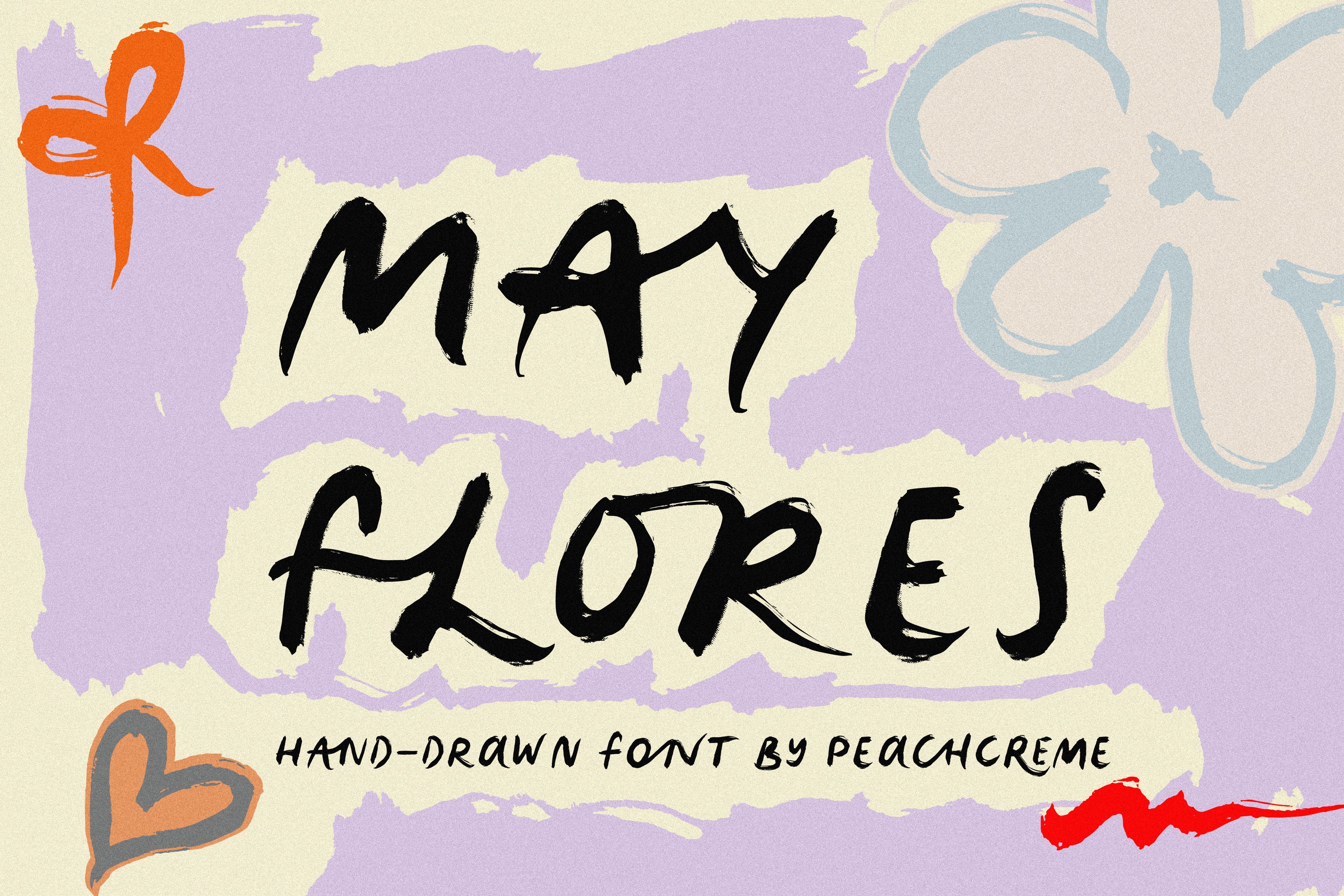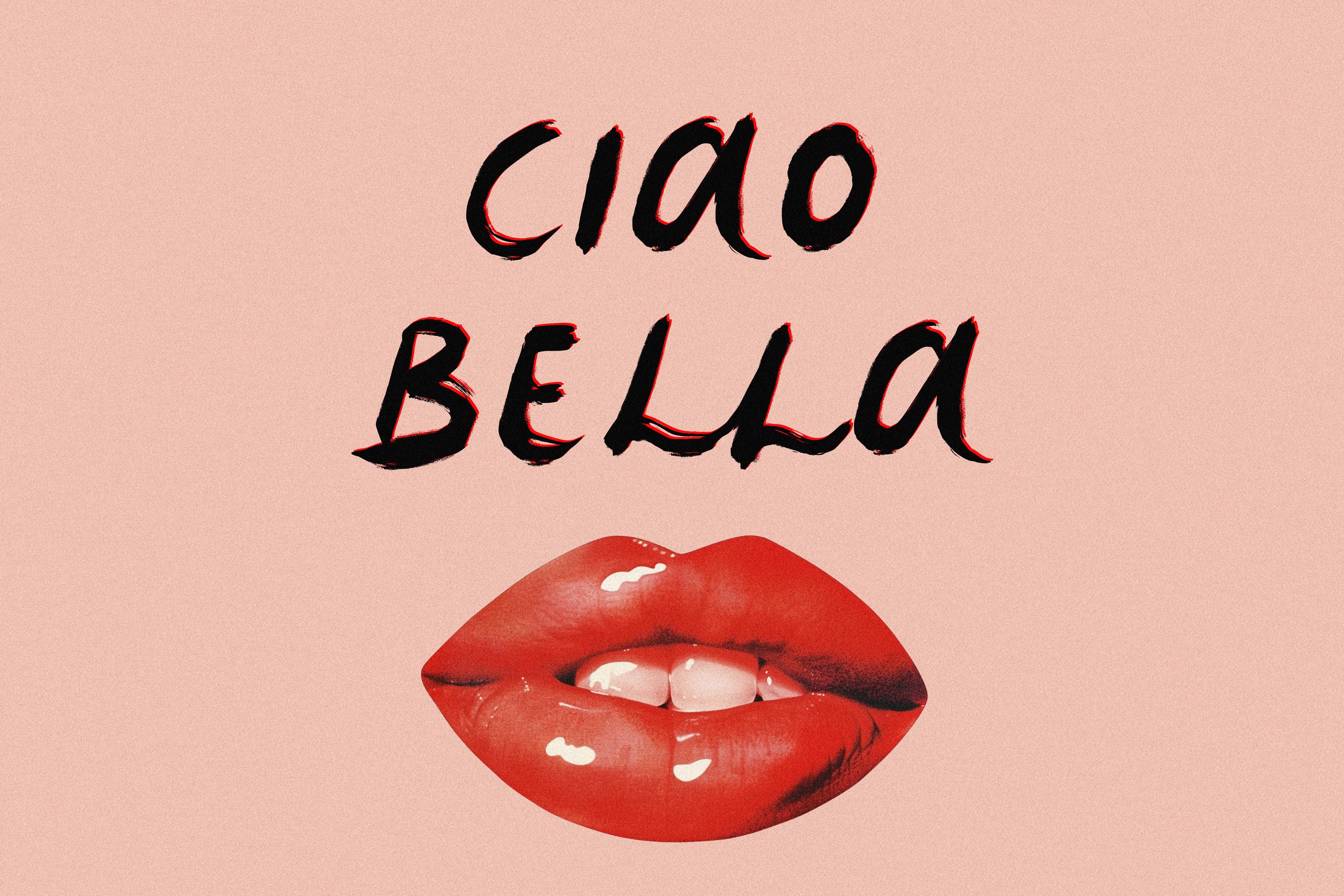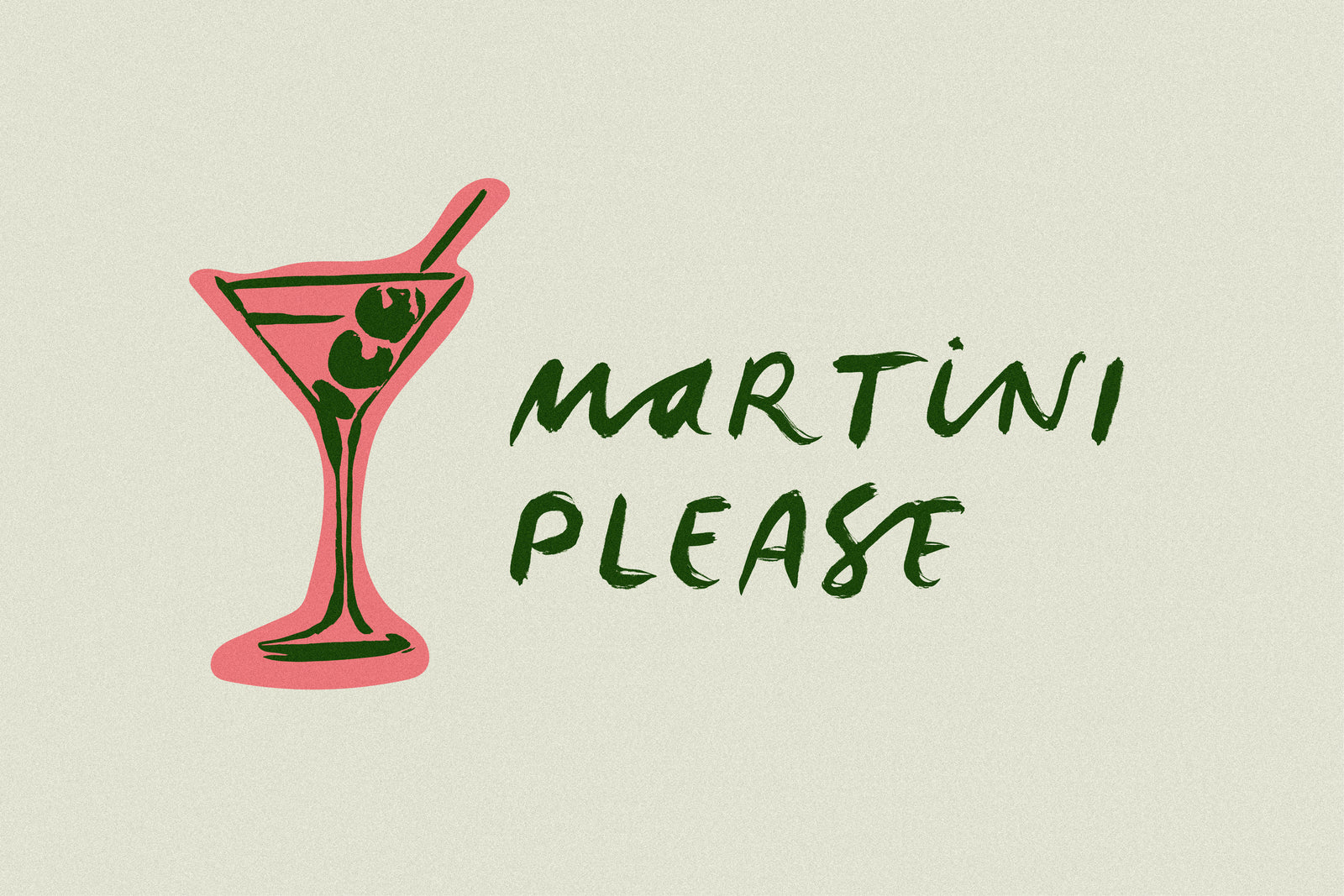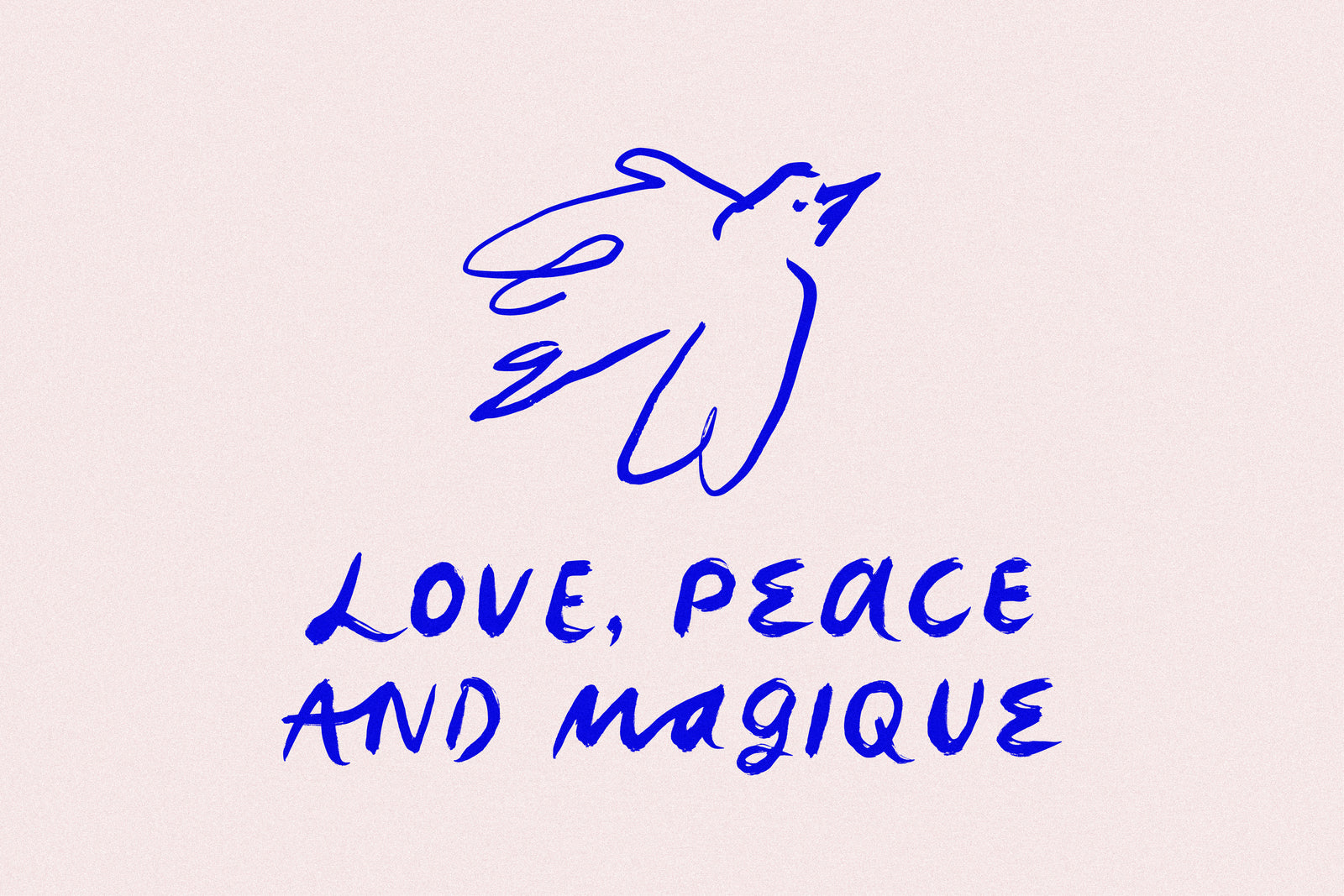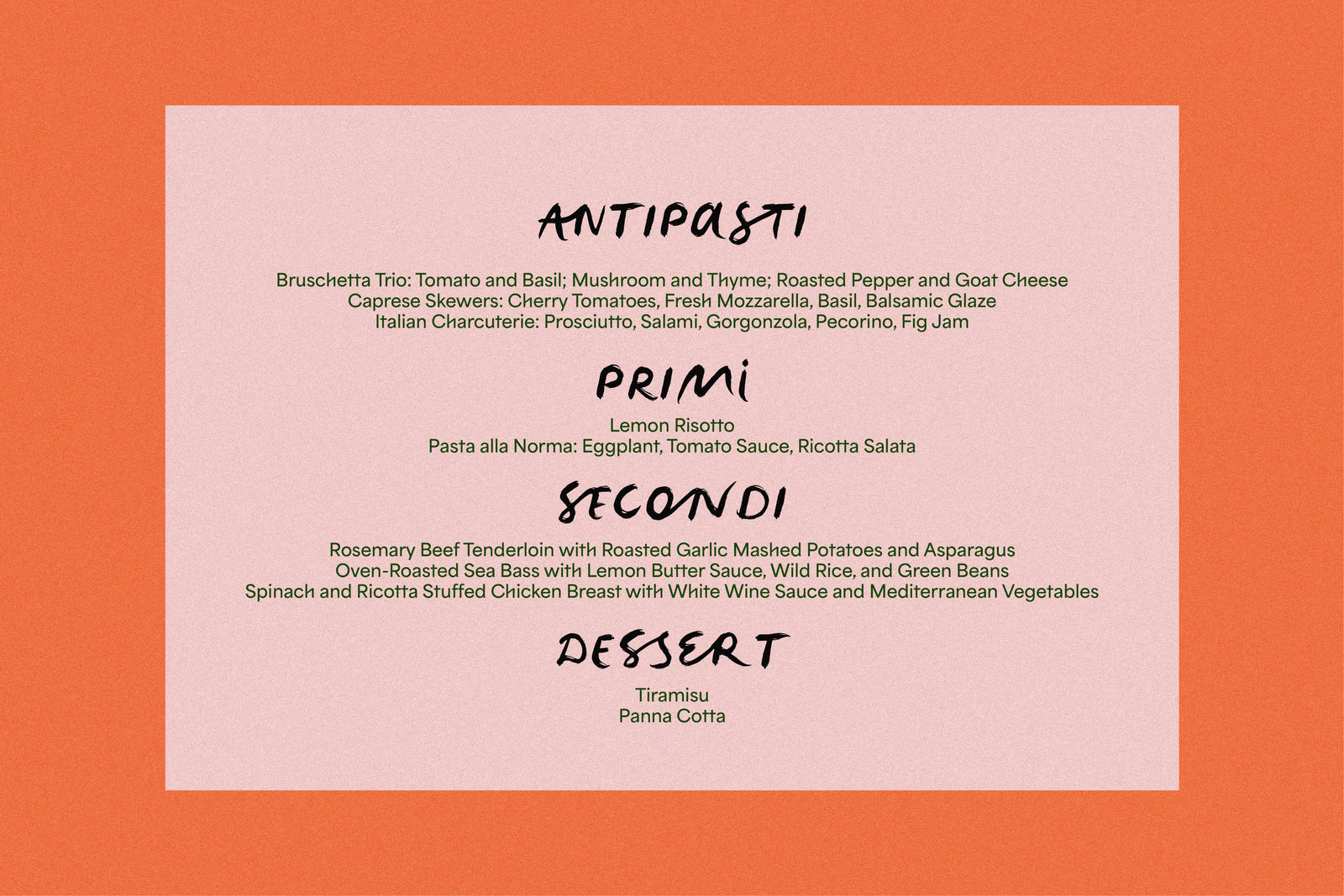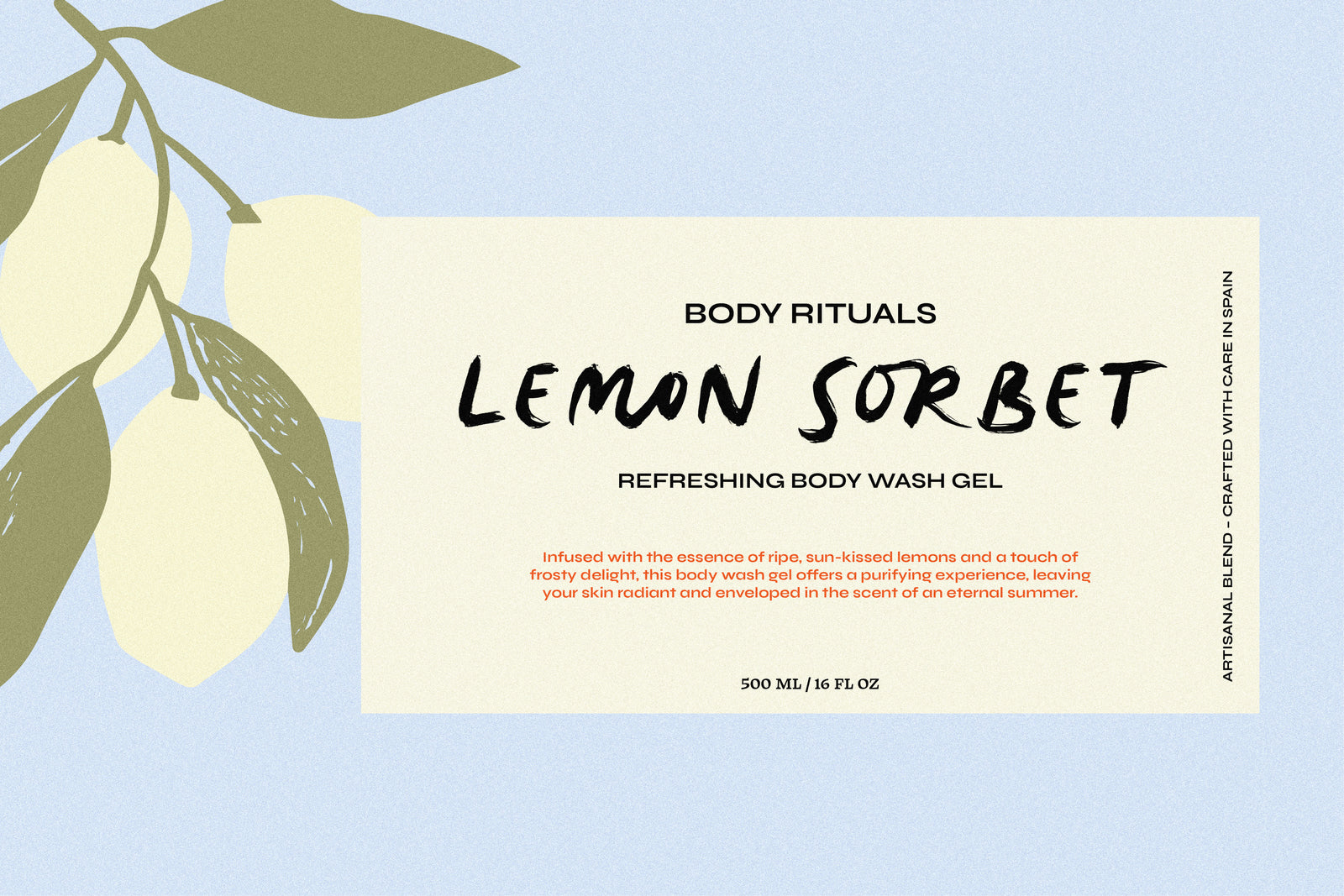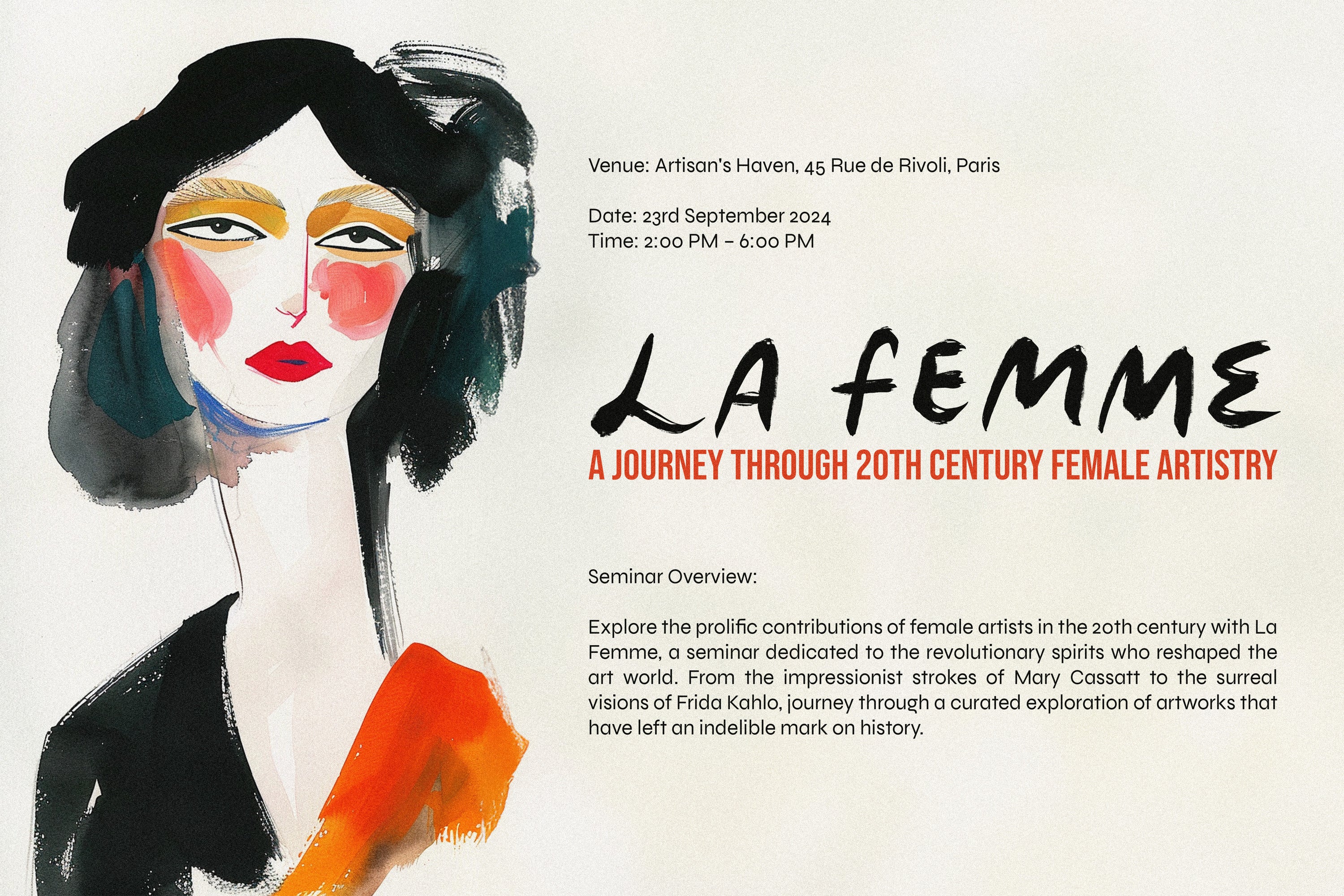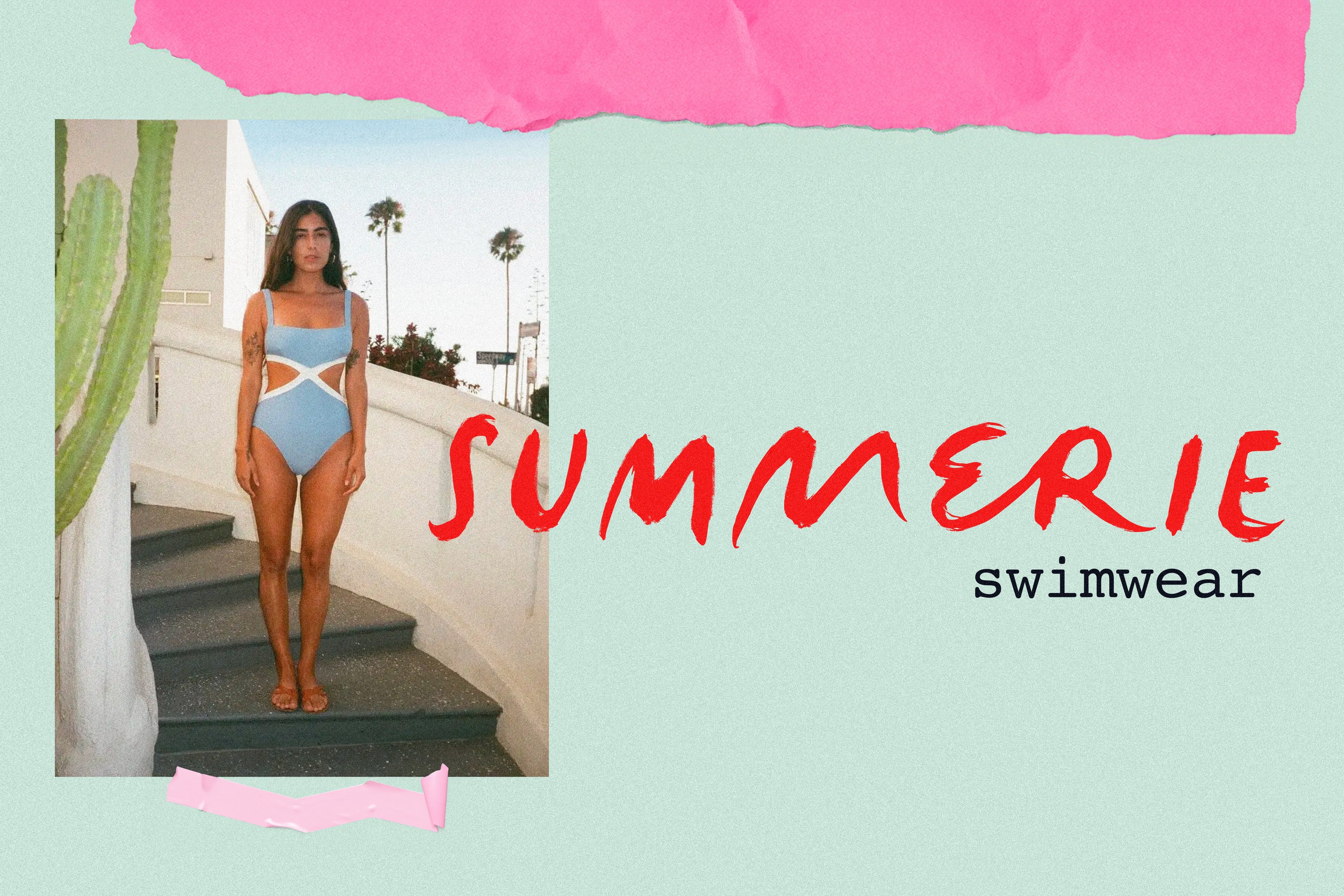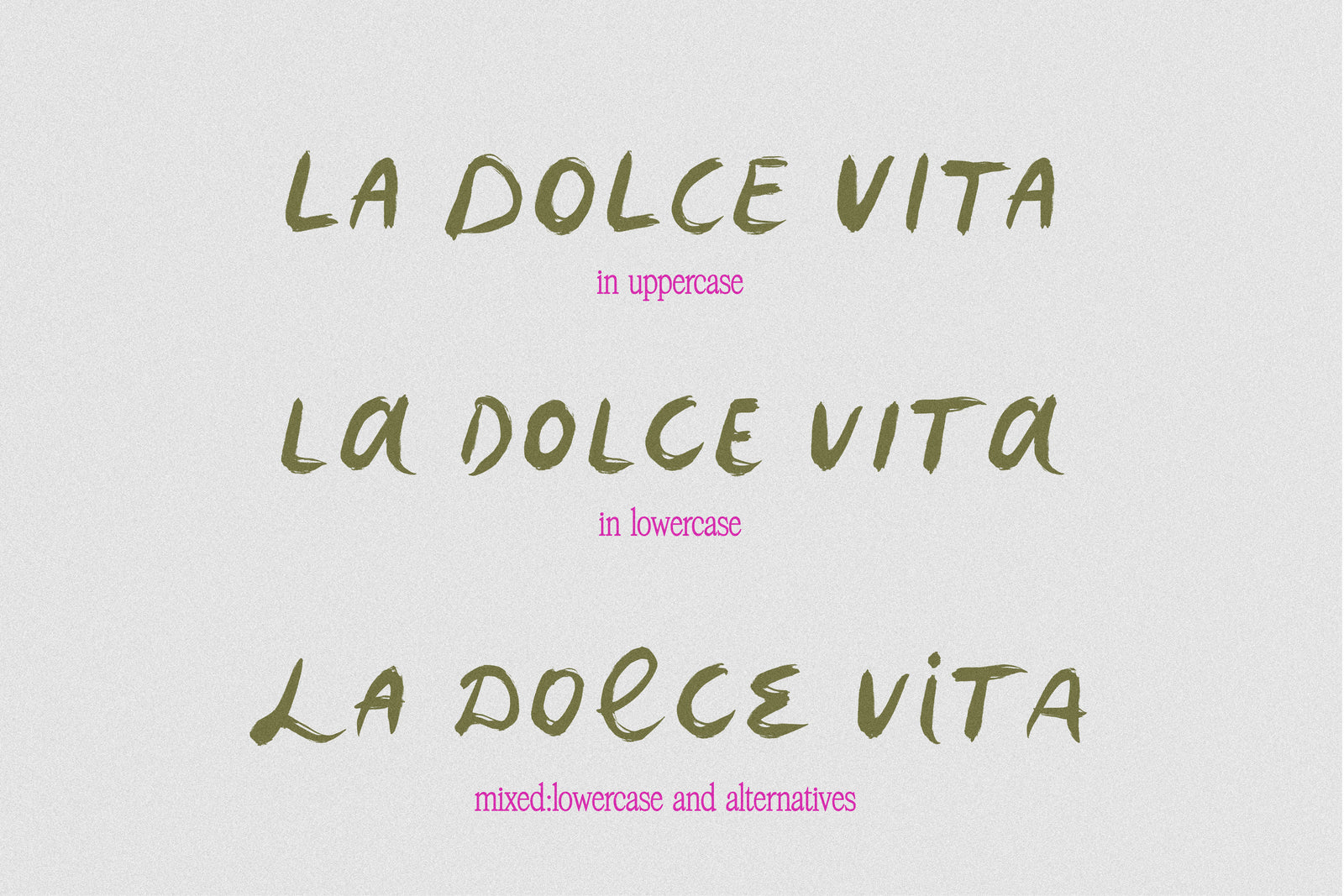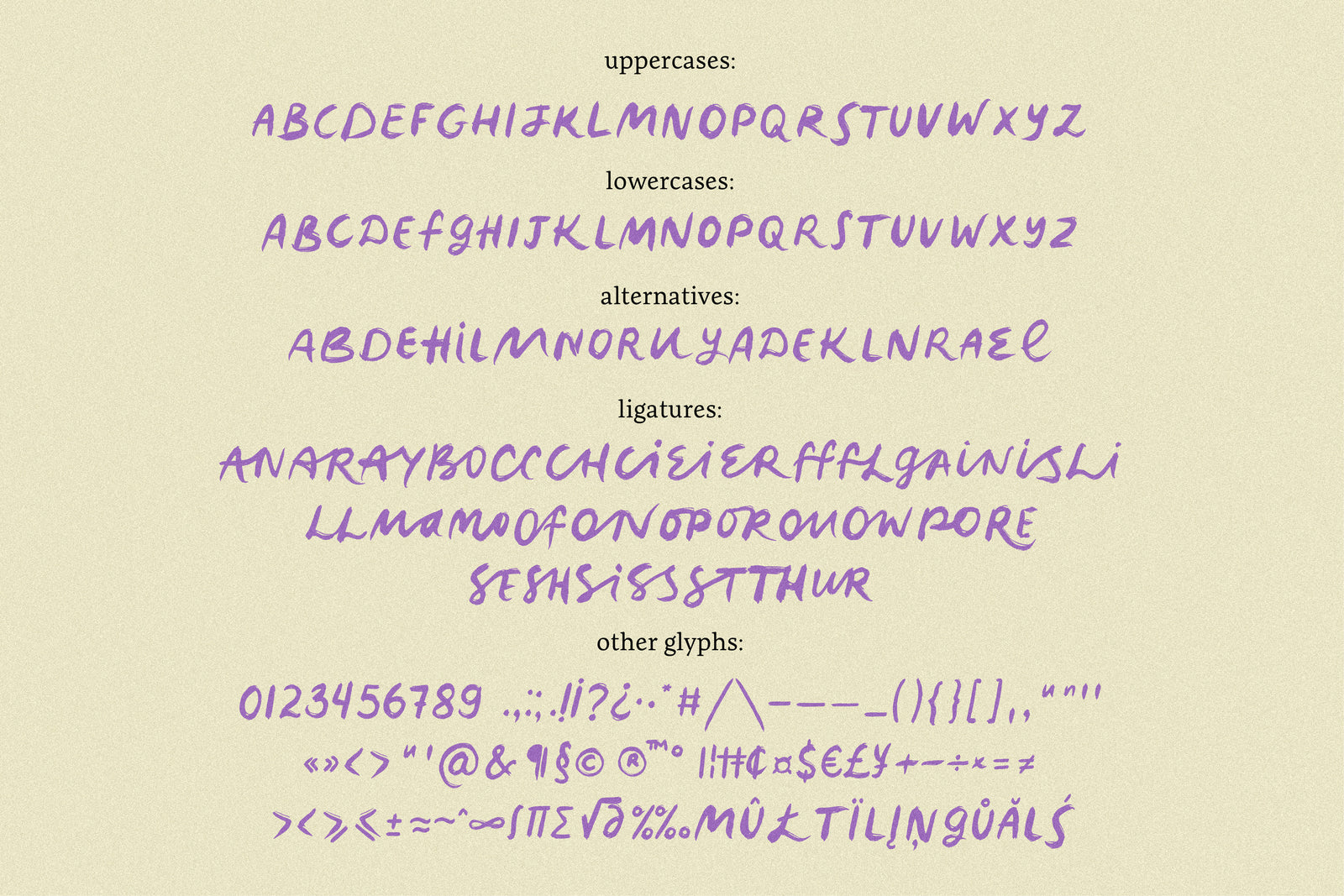
Mayflores// Brush Font
"Mayflores" by PeachCreme is a straightforward, brush-stroke style font with a casual, down-to-earth character. Each letter, whether uppercase or lowercase, has its own unique twist, making it stand out in any context. With additional ligatures and alternatives, it gives you the versatility to make your design distinctive. The font preview shows exactly what you can expect, ensuring 'Mayflores' delivers a genuine touch to your projects.